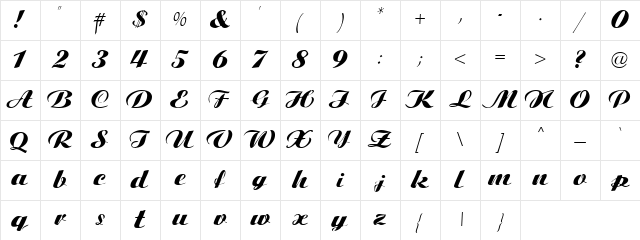
Tiffany's Regular
Design Context for Tiffany's
Tiffany's is a composed and adaptable typeface that performs quietly and consistently across a wide range of design contexts.